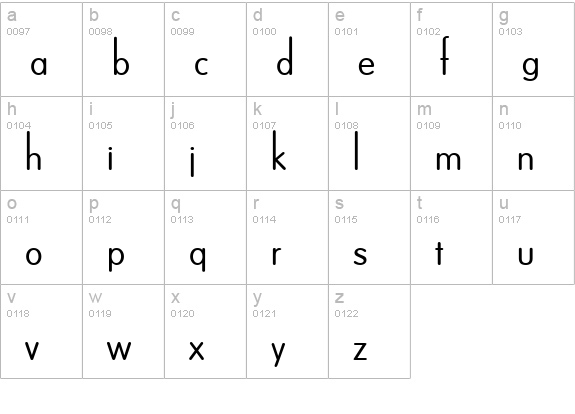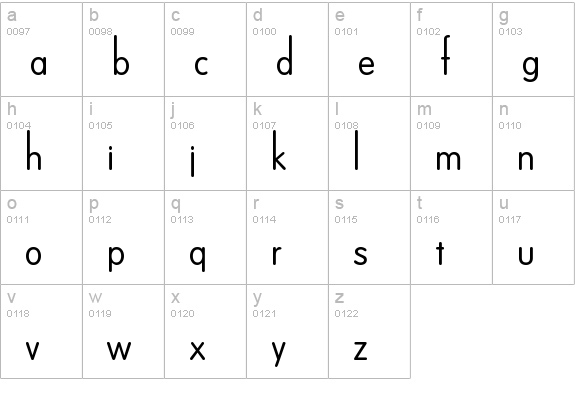
Dreamspeak Font Details
Dreamspeak font is a whimsical and creative typeface that brings a touch of magic to any project. Its flowing lines and dreamlike curves make it perfect for adding a unique flair to invitations, posters, and other designs. With a playful and imaginative style, Dreamspeak font is sure to capture attention and leave a lasting impression. The best part? Dreamspeak font is completely free to download at FontsMarket.com. This means you can easily incorporate this enchanting font into your projects without any extra cost. Whether you're working on a personal project or a professional design, Dreamspeak font is a versatile and eye-catching choice that will help your creations stand out. Download it today and let your creativity soar with Dreamspeak font.